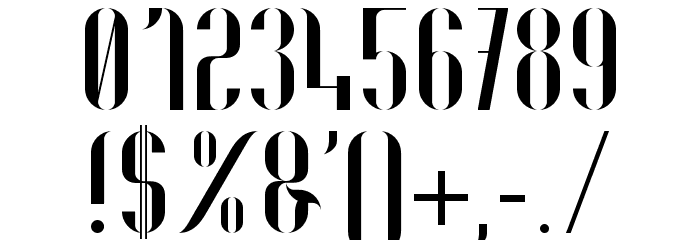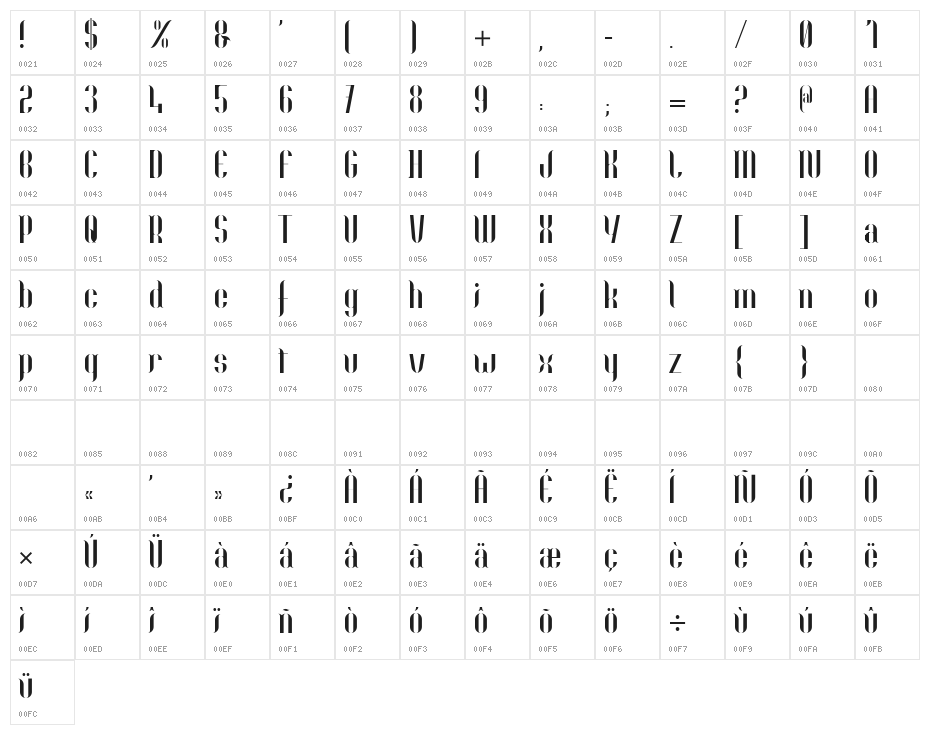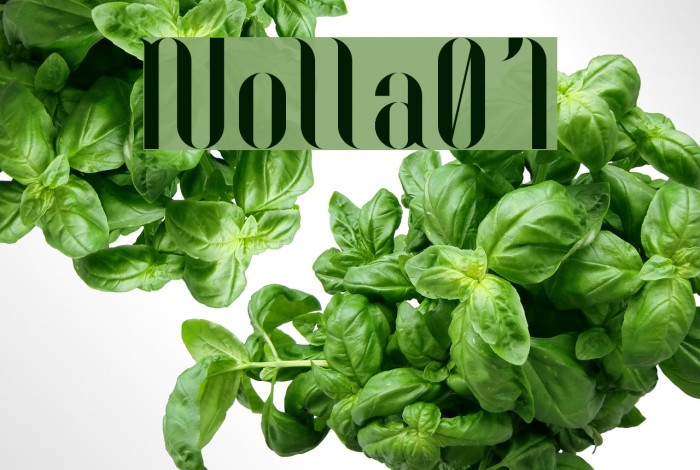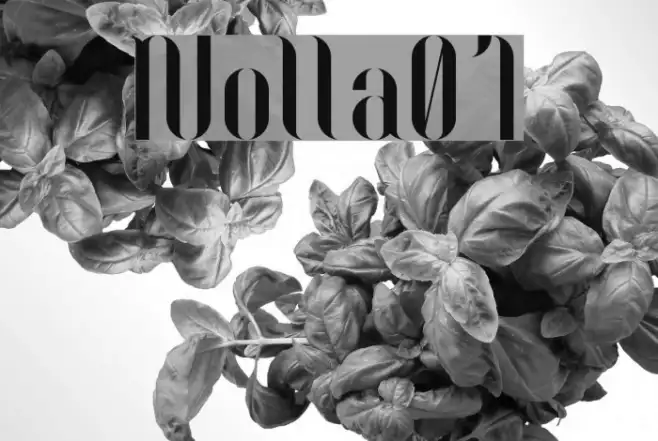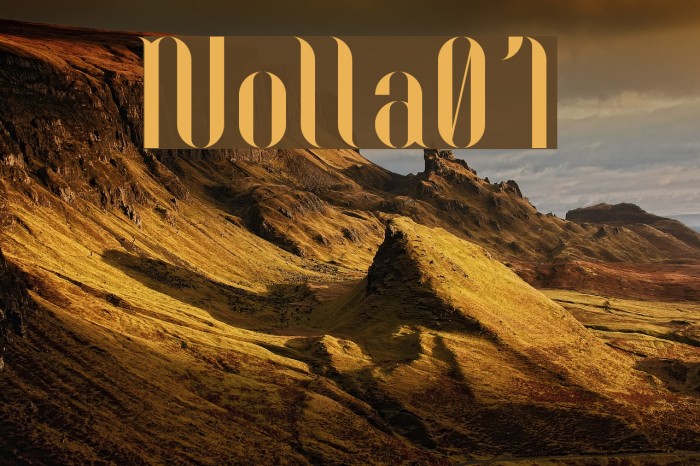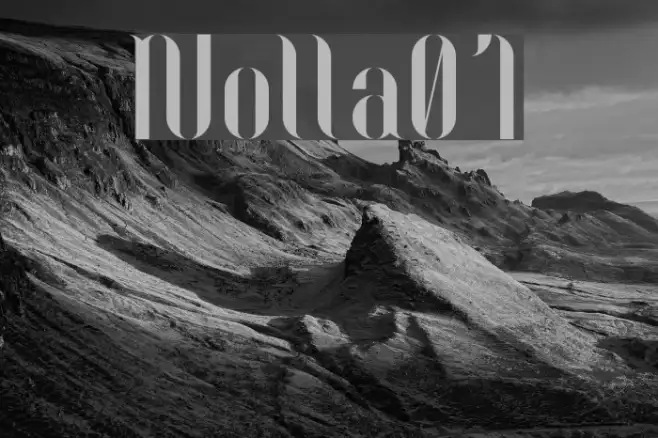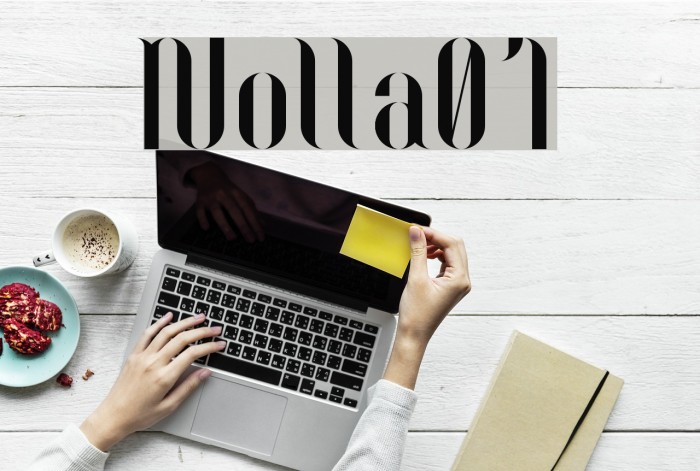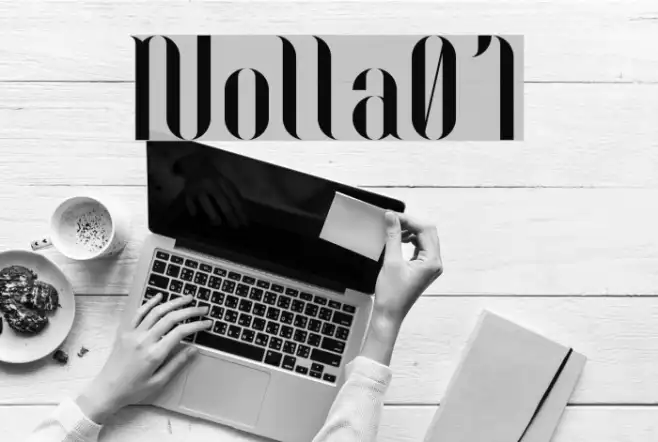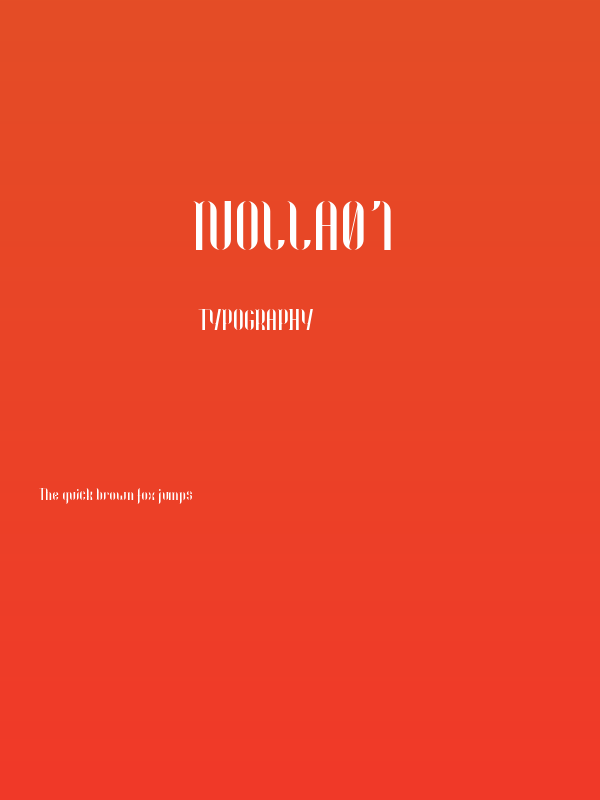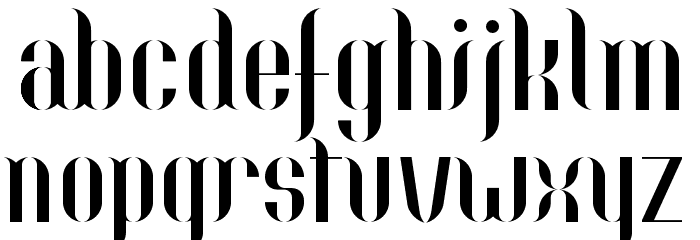
Nolla01 Font
Nolla01 Description
This font features a bold and striking design with high contrast between thick and thin strokes, creating a dramatic and eye-catching appearance. The characters are tall and narrow, with a condensed width that gives a modern and sleek look. The uppercase letters have a strong presence, while the lowercase letters maintain a consistent style with unique curves and angles. The numerals and special characters follow the same design principles, ensuring a cohesive and unified appearance across all elements.
Proposed ProjectsIdeal for branding, poster design, and headlines where a strong visual impact is desired.